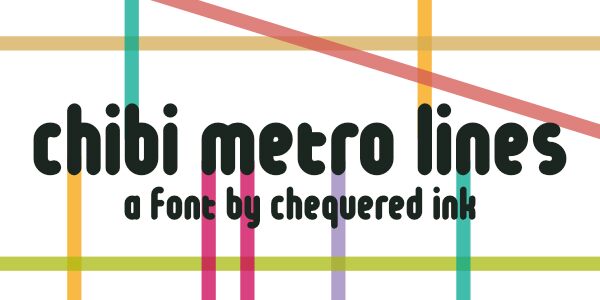
Chibi Metro Lines Regular
Chibi Metro Lines font is a unique creation by Chequered Ink characterized by its rounded sans serif style and condensed structure. The font blends modern round shapes with artistic lines in its highly recognizable letters. It has a contemporary aura built with cohesive geometric shapes and smooth edges that are friendly and approachable.
This free modern display font makes a great option for logo designs, print packaging, webpage titles, business cards and invitations. Users can also employ it in General posters, social media posts, book covers as well as cafes or restaurants’ menu headers among others.